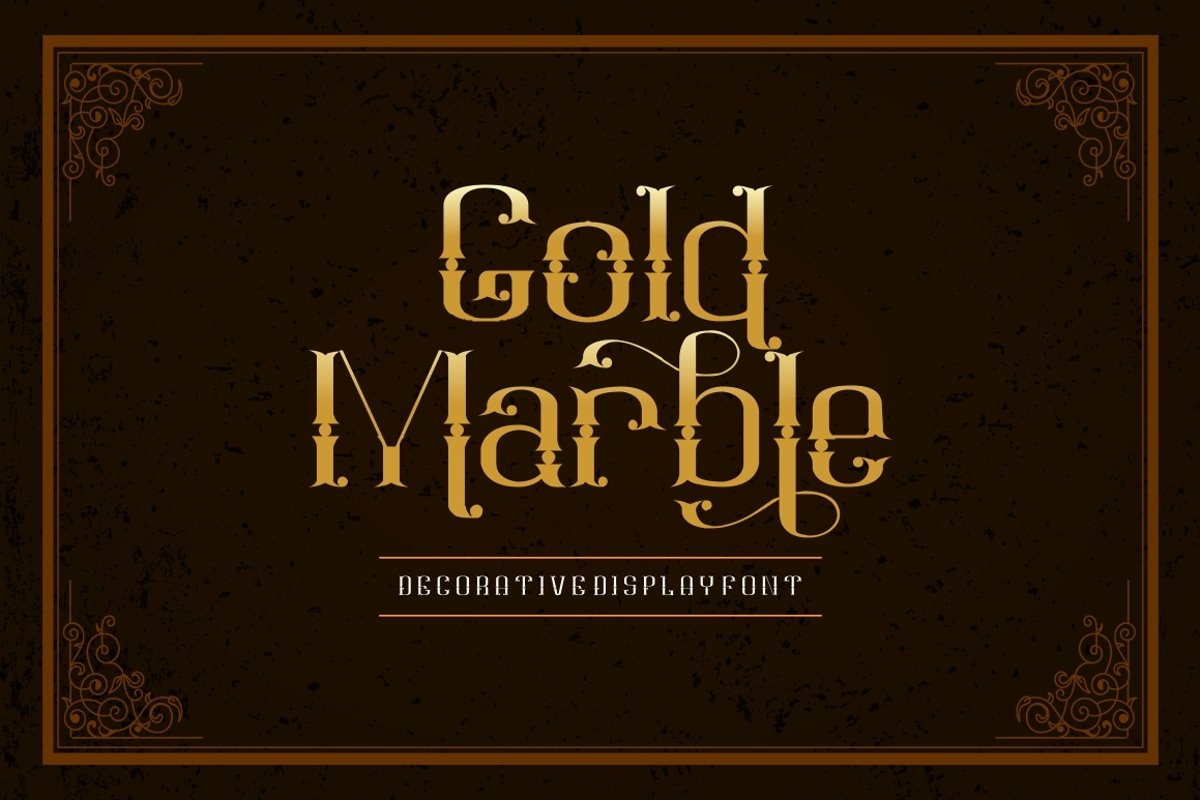
Goldmarble
Introducing my lastest new font. This font is perfect for crafters, designer and all creative people.
This font is suitable for crafting, svg designs, logotype creation, lettering compositions, wedding invitations, fashion projects, book design cover, magazines typography, cards, packagings, posters, label, apparel, event, quotes, merchandise, social media, branding and more.
This font come with uppercase, lowercase, number, punctuation, symbol and also support multi language.
This font has many opentype features like ligature and alternate.